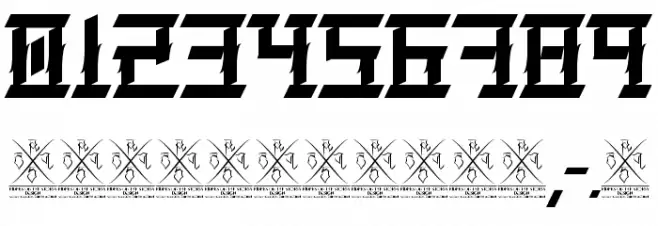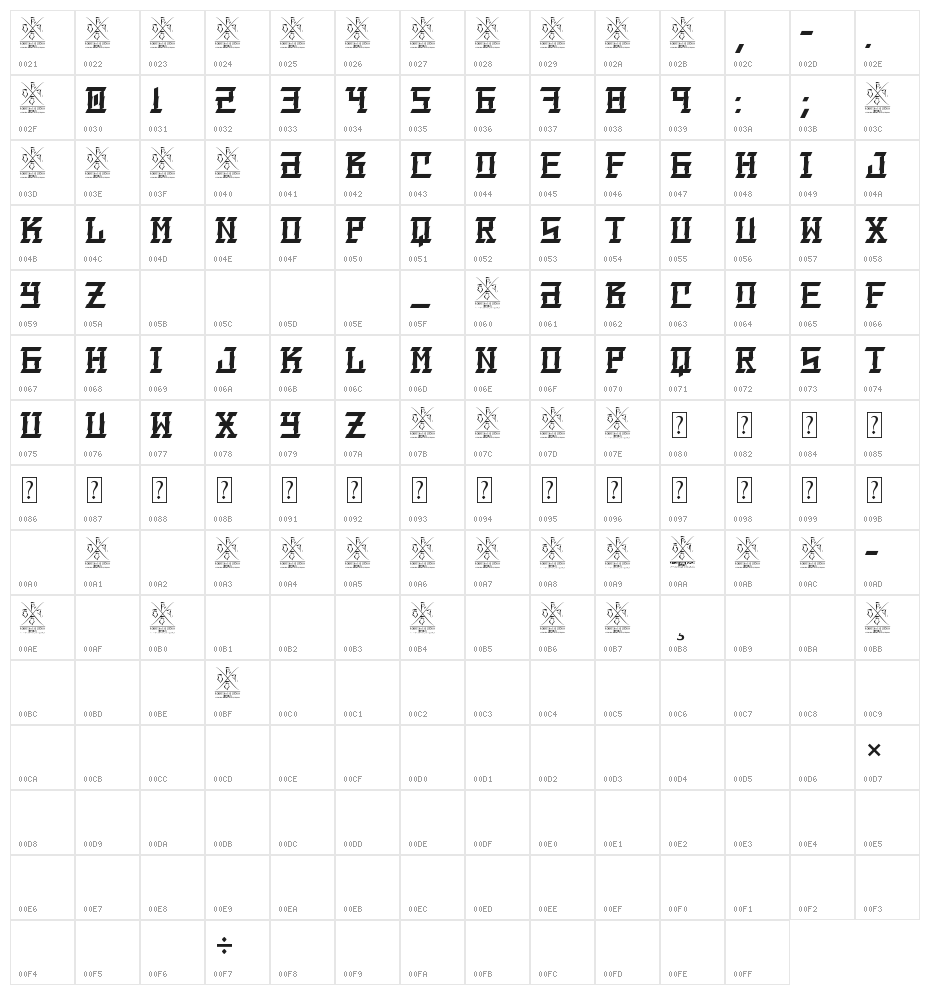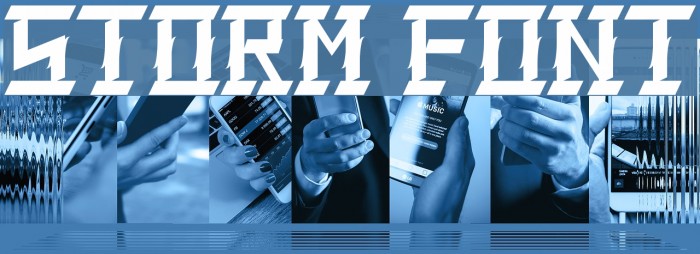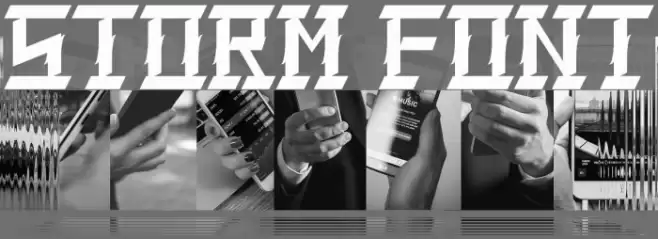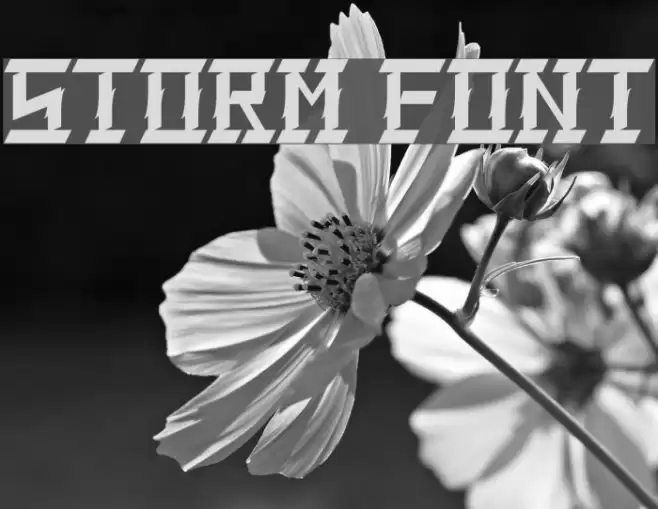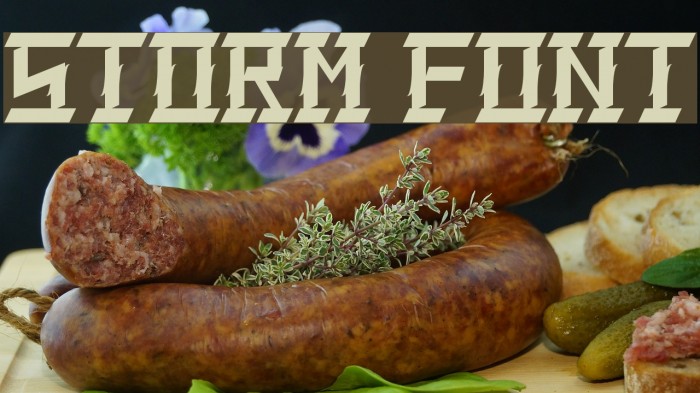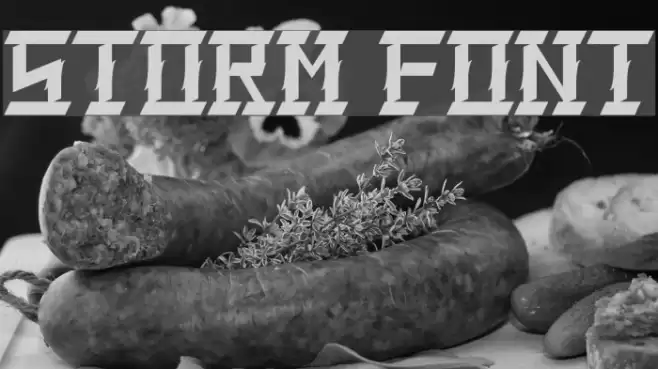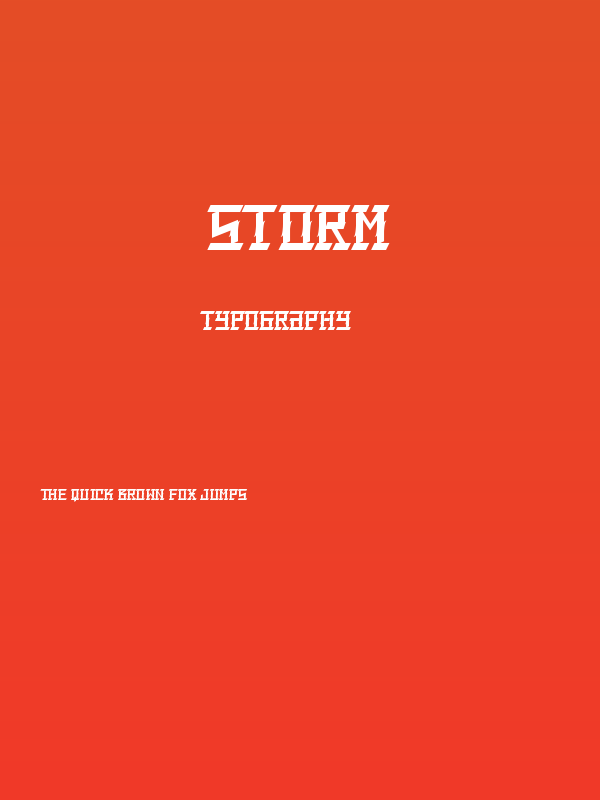
Storm Font
Storm Description
This font features a bold and angular design, characterized by sharp edges and a geometric structure. The uppercase and lowercase letters maintain a consistent style, with each character exhibiting a strong presence. The numerals are equally bold, matching the assertive style of the alphabet. Special characters are designed to complement the overall aesthetic, making this font suitable for impactful and eye-catching designs. The font's unique style is reminiscent of modern graffiti or street art, with a touch of futuristic flair.
| Overall Style | Modern, Futuristic |
| Proposed Projects | Ideal for branding, poster design, album covers, and any project requiring a bold, modern aesthetic. |